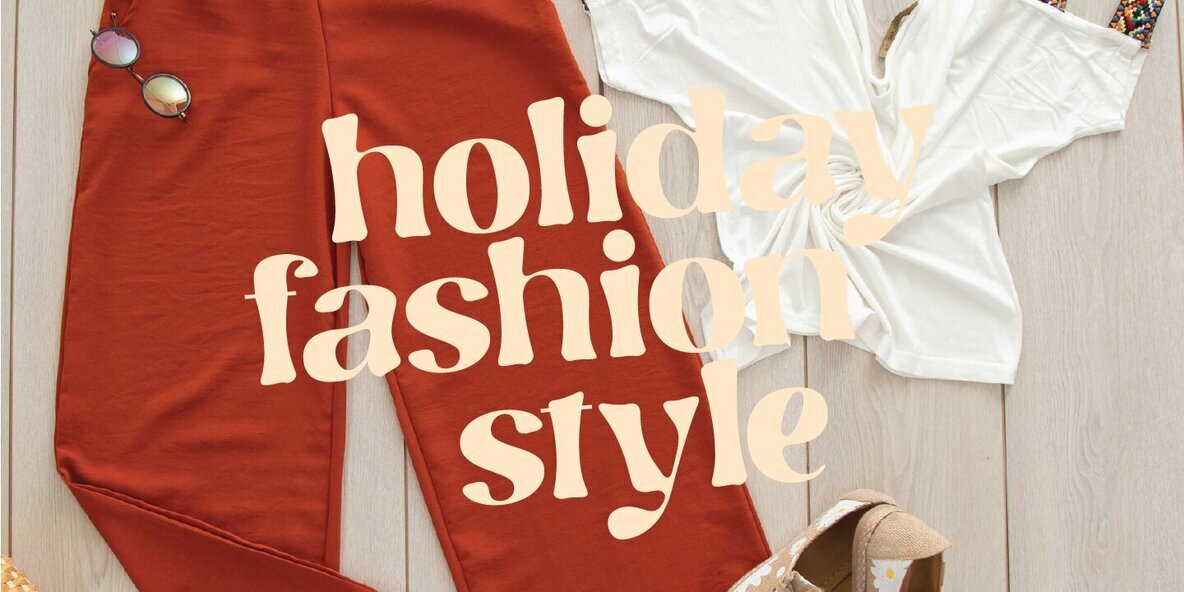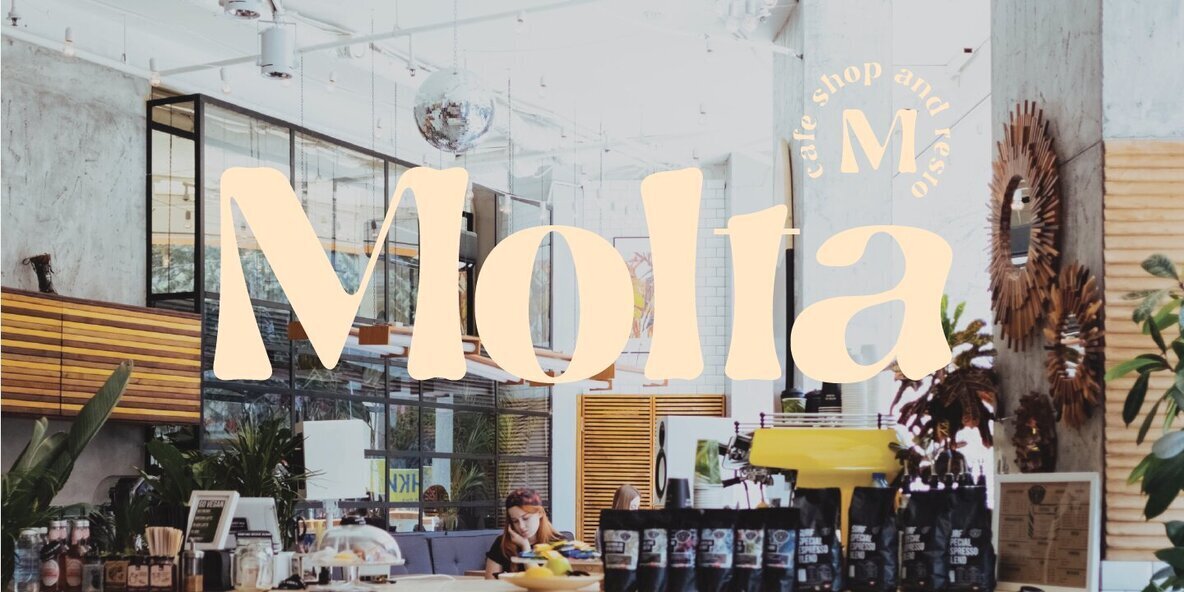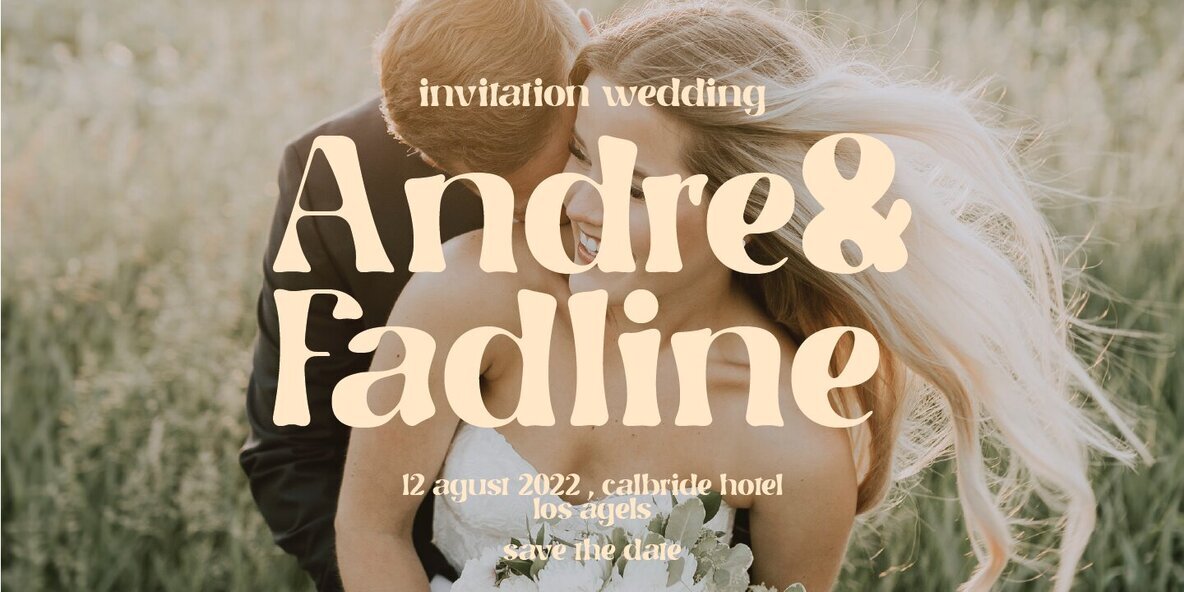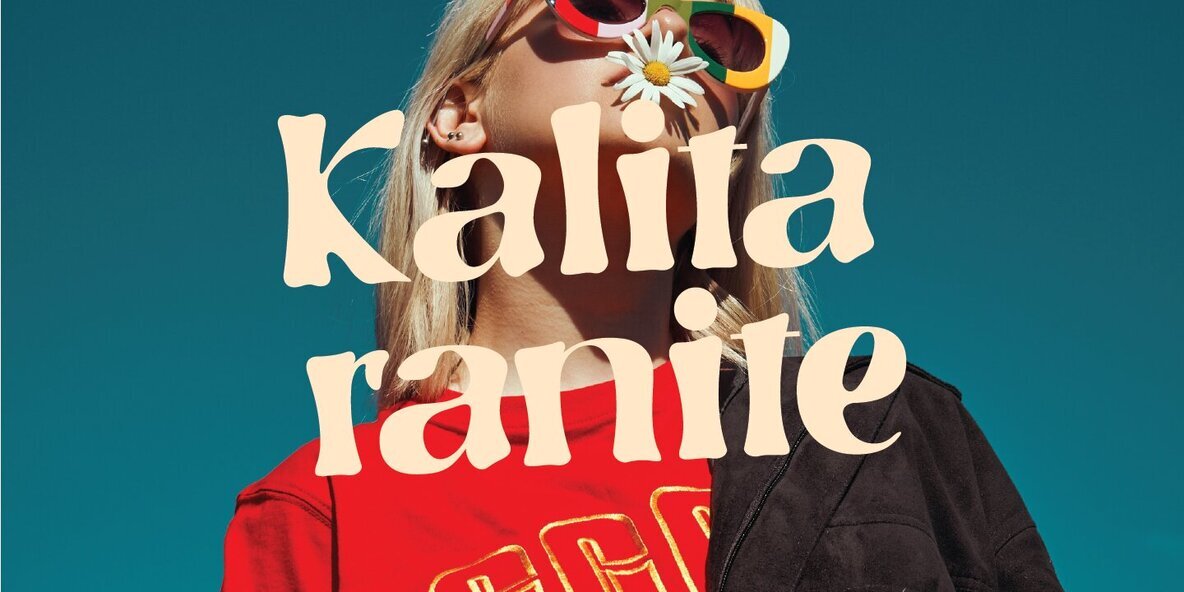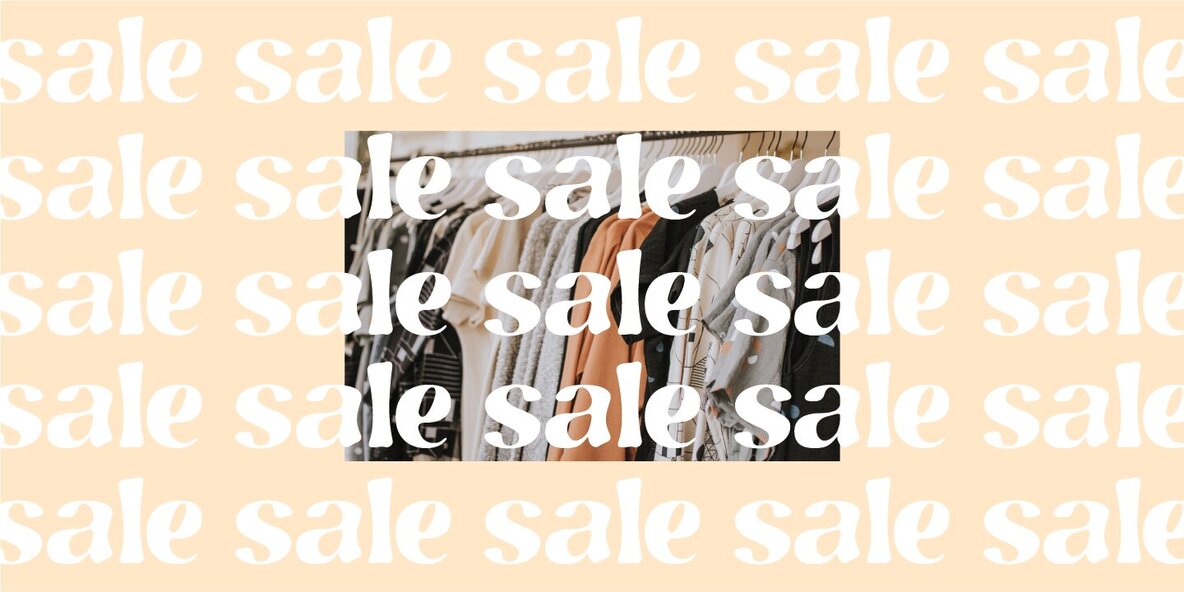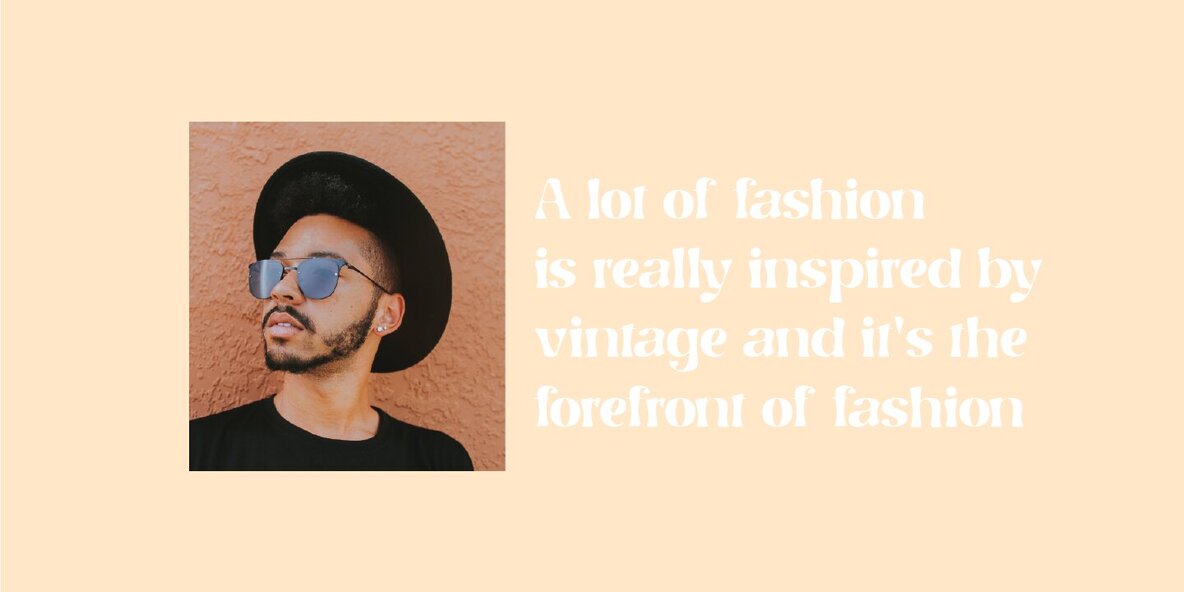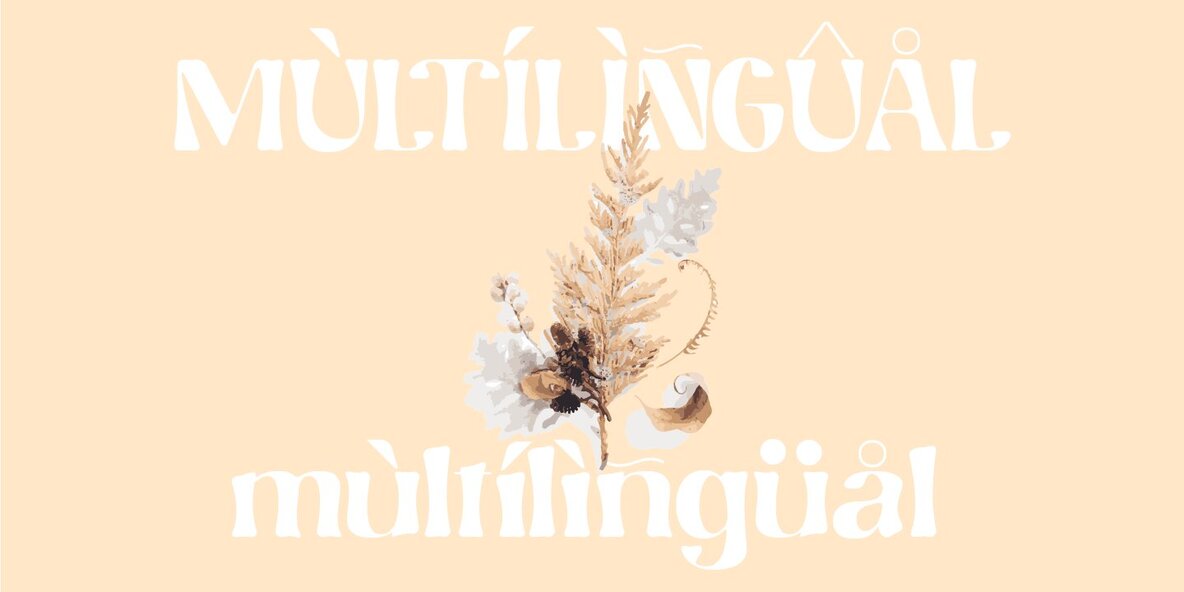
Nelliy Font
Nelliy Regular
Embrace a classic yet contemporary aesthetic with the Nelliy Modern Vintage Font. This versatile typeface boasts special glyphs and ornate details, catering to a design-savvy audience looking to add a touch of elegance to their projects. Whether utilized in bold magazine headers or as a chic text overlay, Nelliy’s adaptability shines through in both large and small sizes.Nelliy: Modern Vintage Serif Font
The font suits a range of applications from editorial projects and logo design to clothing branding and product packaging. Delve into its intricacies and discover how it can enhance your creative endeavors.